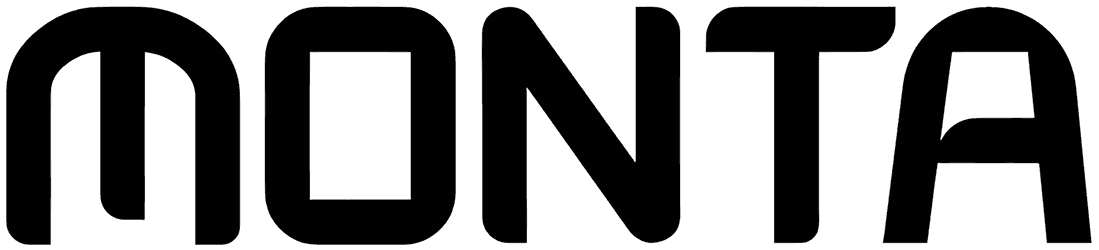
Monta Font
If you want to give your digital projects a thicker appearance, try Monta, a block font that can be applied to achieve a crisp effect. Its two separate capital styles make it an excellent choice for everything from video games to cartoons or movie posters.
Despite the absence of lowercase characters, this tech font is worthy of acclaim for its elegant tones and dimensions. If you like a good challenge, by all means, go ahead and grab it.